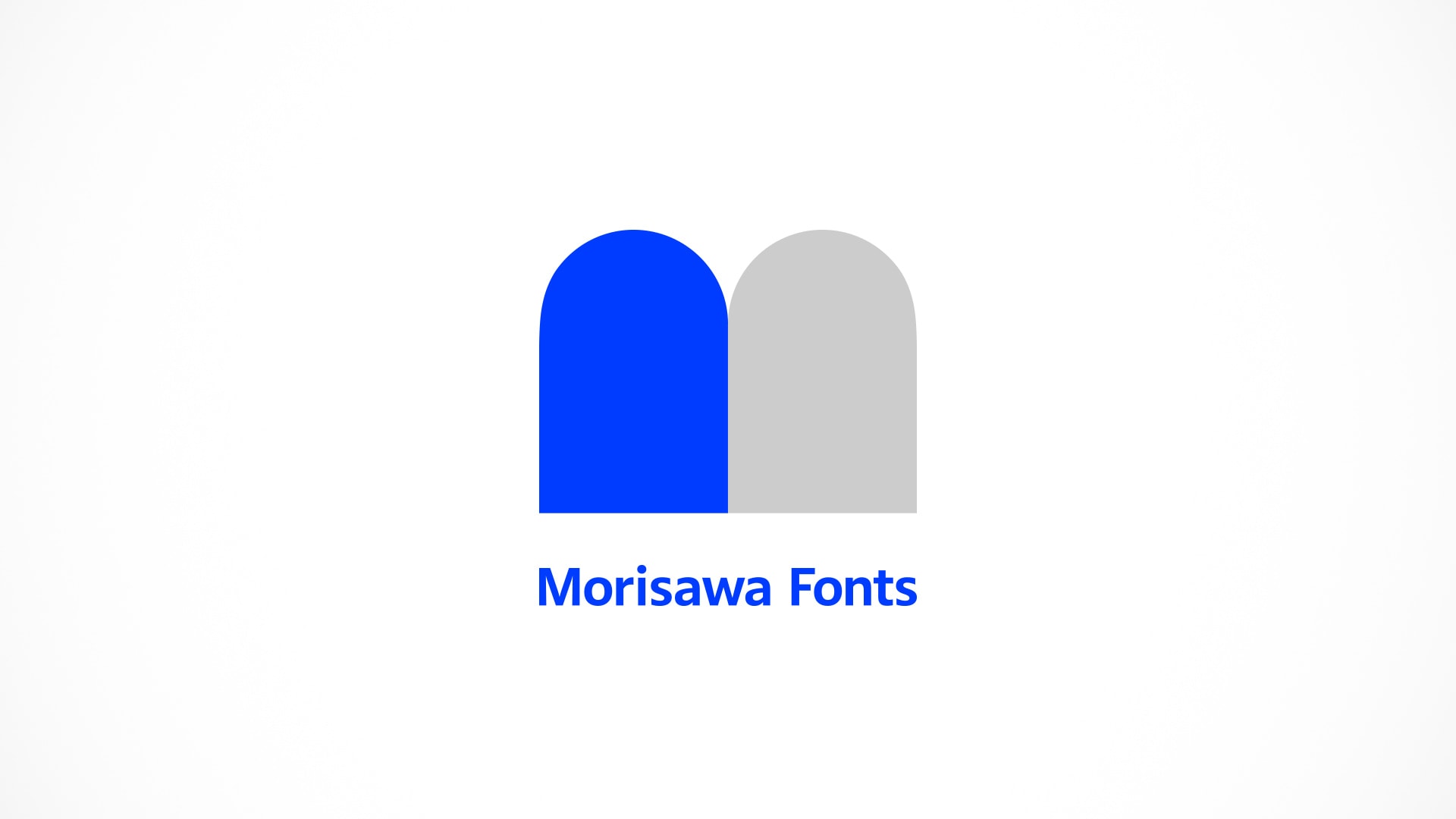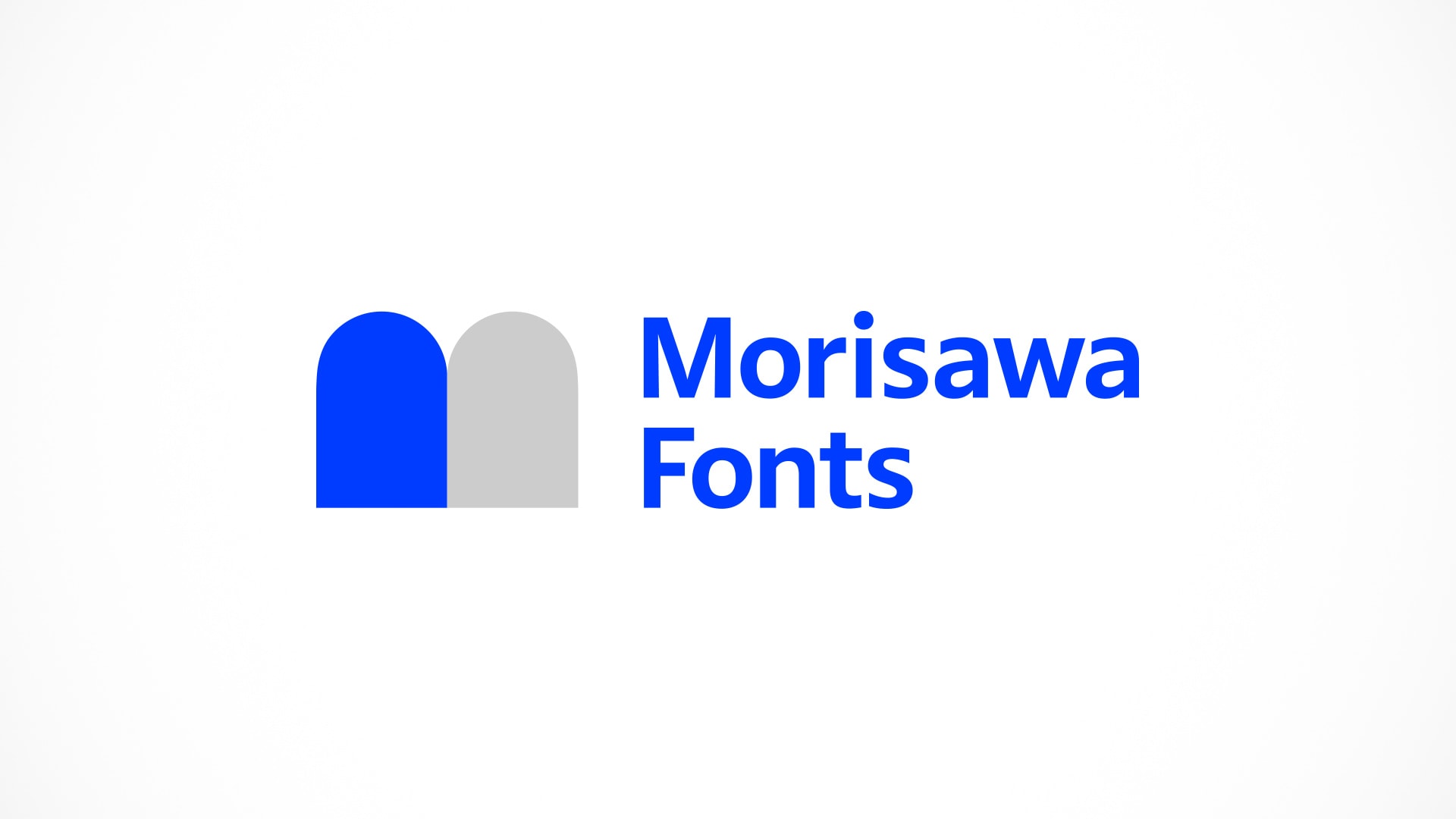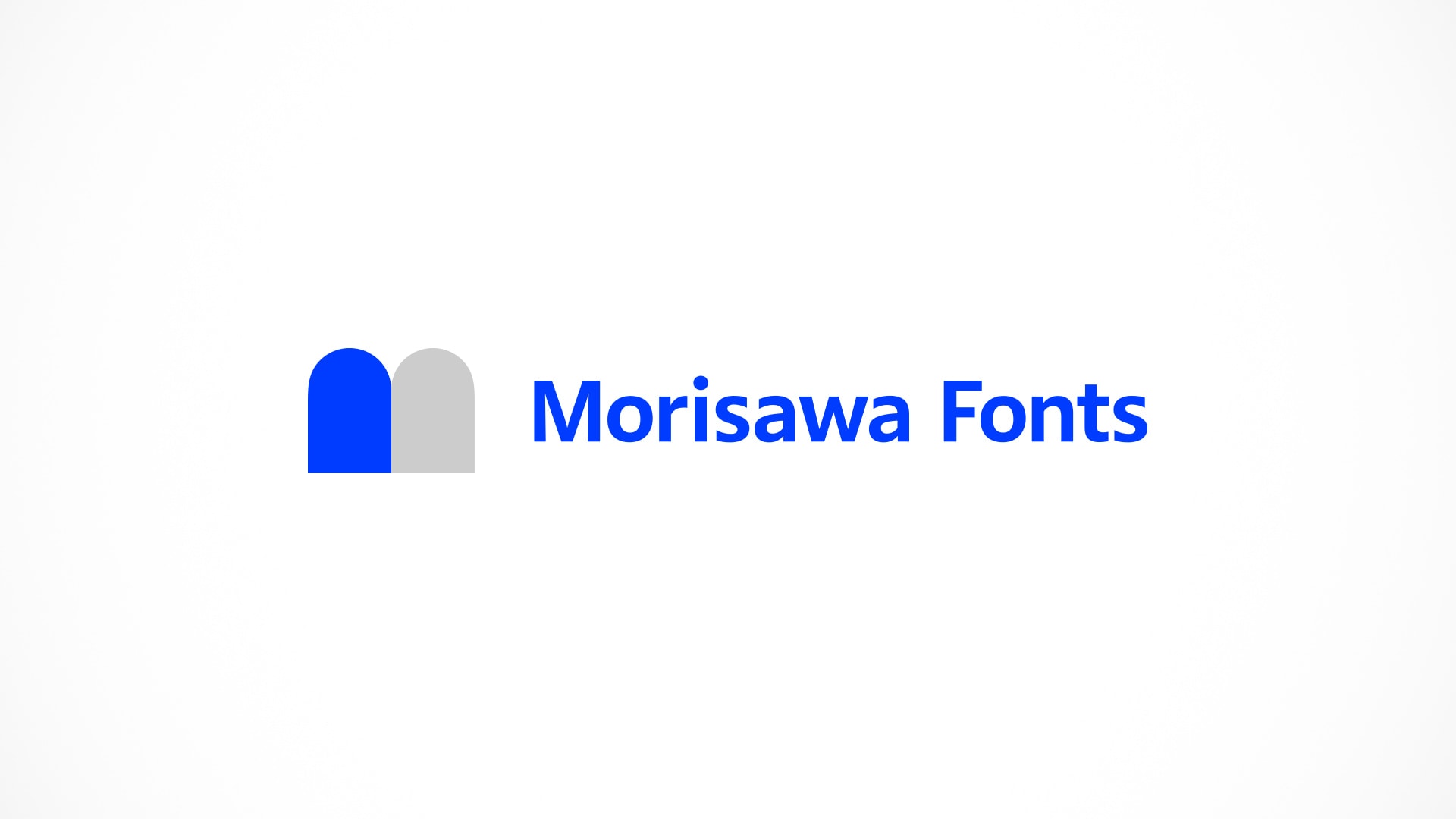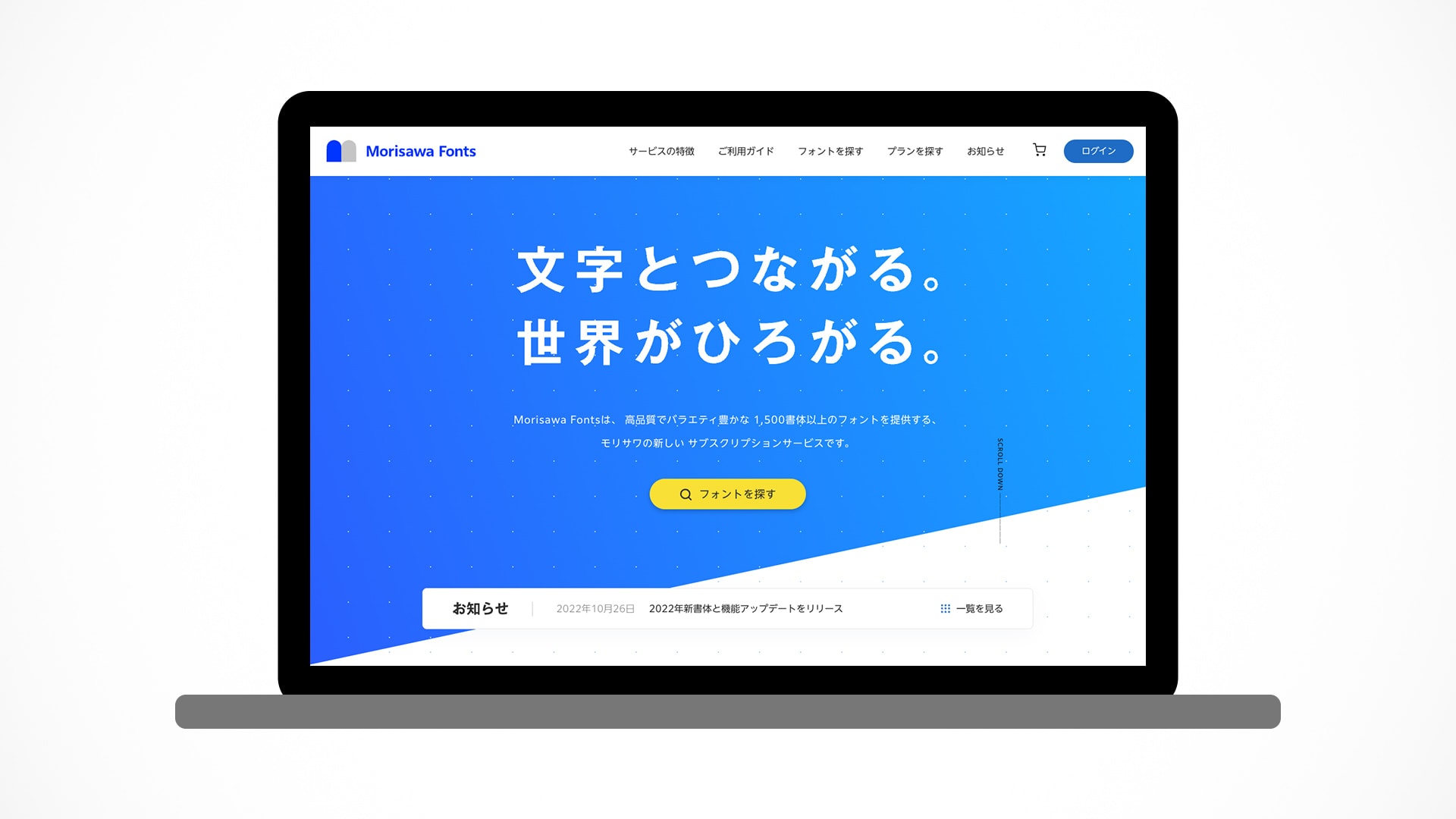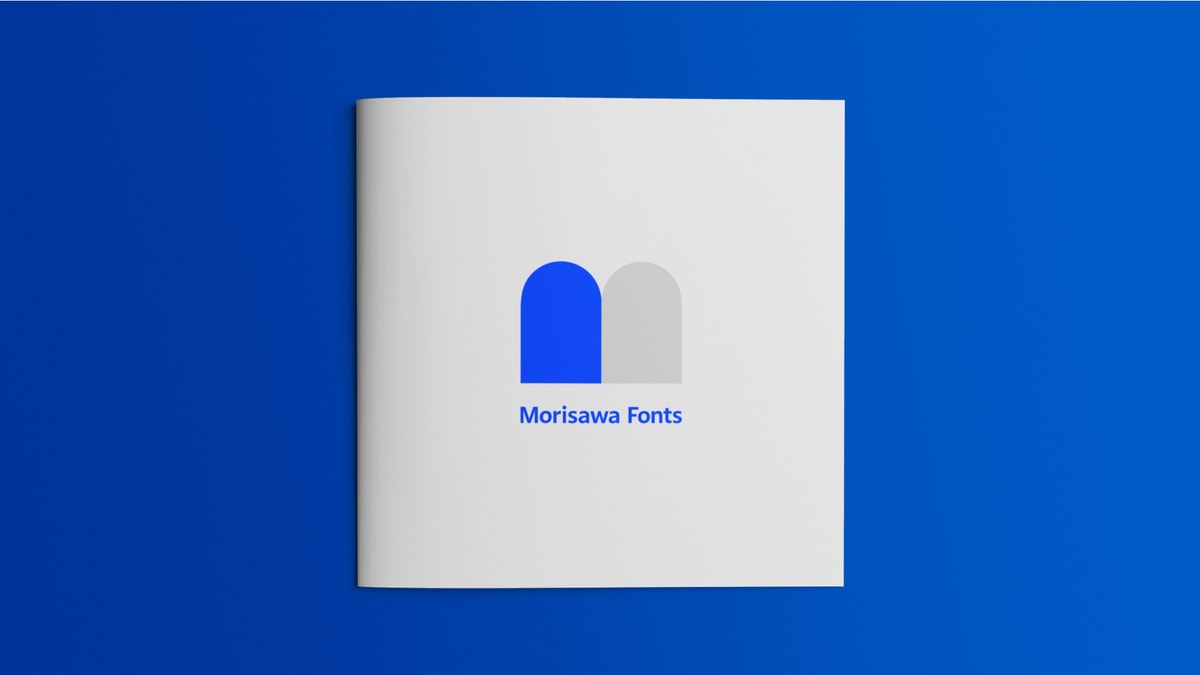
Morisawa Fonts
Logo and Tagline for New Subscription Service "Morisawa Fonts"
We created the logo and tagline for Morisawa Fonts, a new subscription service by Morisawa, a leader in the Japanese font industry.
This subscription-based offering lets users connect to Morisawa fonts anytime from any device. The logo expresses this “More open and accessible Morisawa” product concept by featuring an open door as a motif and the “M” representing the initial letter of Morisawa. As a logo for a service that will continue for a long time, we aimed for a simple yet powerful design.